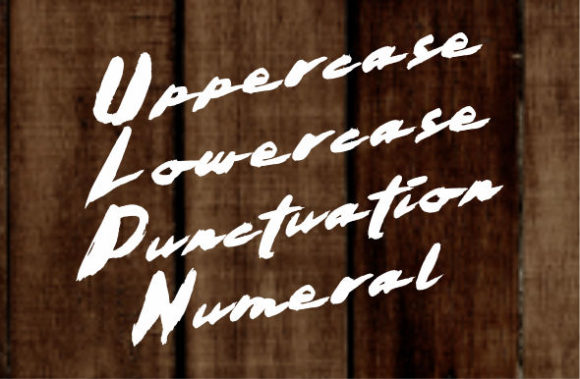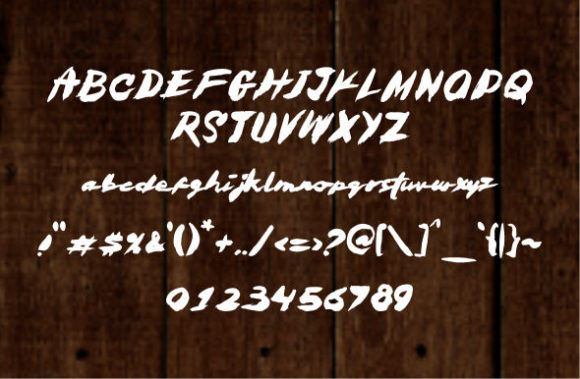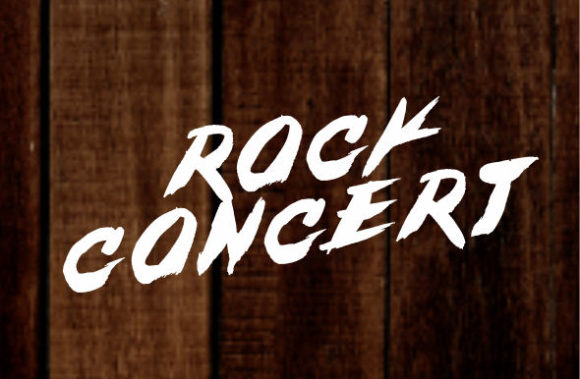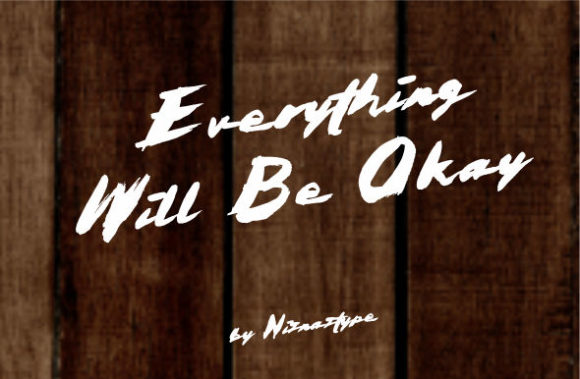
The Quest for the Perfect Font: Discovering Catloekeys
I’ll never forget the design project that led me to Catloekeys Font. I was working on a branding project for a local craft fair, and I needed a font that would capture the down-to-earth, handmade essence of the products. I spent hours scouring font websites, but nothing seemed quite right. That was until I stumbled upon Catloekeys – a bold, handwritten font that instantly resonated with me.
First Impressions: A Love Affair with Catloekeys
Catloekeys is a carefully handcrafted font that exudes a casual charm, making it wonderfully down-to-earth, readable, and incredibly versatile. Its bold, yet approachable design makes it perfect for a wide range of applications, from busy backgrounds to standalone headlines.
What I Love About Catloekeys ✨
- ✅ Unique Character: Catloekeys has a distinct personality that sets it apart from other fonts.
- ✅ Readability: Despite its bold nature, Catloekeys remains surprisingly readable, even at smaller sizes.
- ✅ Versatility: This font can be used in a variety of contexts, from digital designs to print materials.
- ✅ OpenType Features: Catloekeys supports OpenType features, allowing for advanced typography and glyph access.
While Catloekeys is an excellent font, it’s not without its quirks. ⚠️ Some users may find that the font’s boldness can make it difficult to use in certain contexts, such as in large blocks of text. Additionally, the font’s handwritten nature means that it may not be the best choice for very formal or professional applications.
The Story Behind Catloekeys
Catloekeys was designed with the intention of creating a font that would be both bold and approachable. The designer aimed to craft a font that would be perfect for creative projects, such as branding, packaging, and advertising. With its unique character and versatility, Catloekeys has become a favorite among designers and crafters alike.
| Font Name | Catloekeys Font |
| Author | Niznaz Graphic Studio |
| What is Catloekeys? | Catloekeys is a bold handwritten font, carefully handcrafted to become a true favorite. |
| What is Catloekeys best used for? | Catloekeys is perfect for creative projects, such as branding, packaging, advertising, and more. |